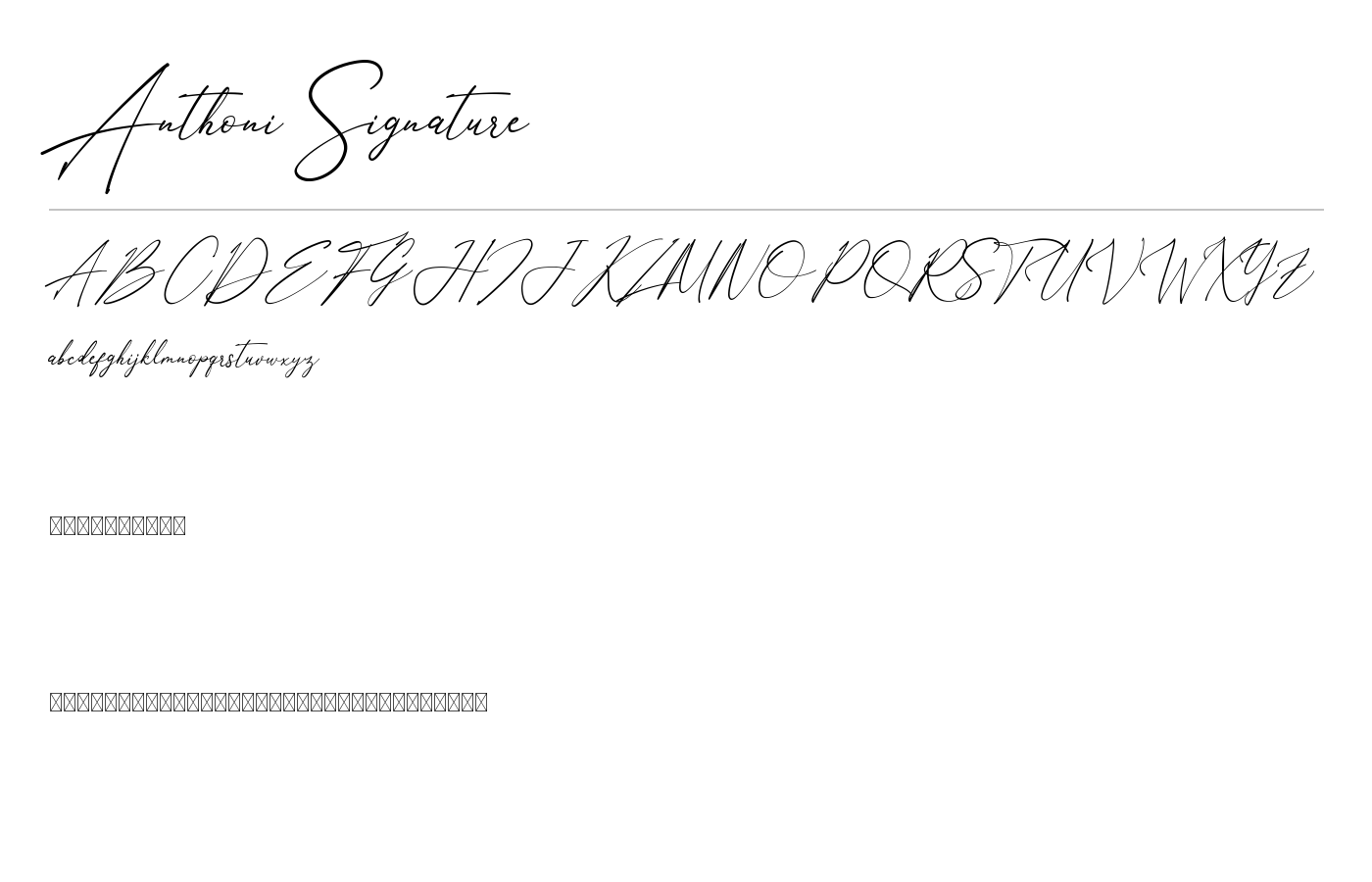
Anthoni Signature is a delicate, elegant handwritten script font with slender, flowing strokes that mimic natural penmanship. Its airy, light style and smooth curves make it perfect for personal branding, wedding invitations, and luxury packaging, where a refined and sophisticated touch is desired. This font shines in large displays and logos, adding a graceful and intimate feel to any design.
Anthoni Signature Font
About Anthoni Signature Font
| Font family | Anthoni Signature Font |
| Designer | Arif Dwi |